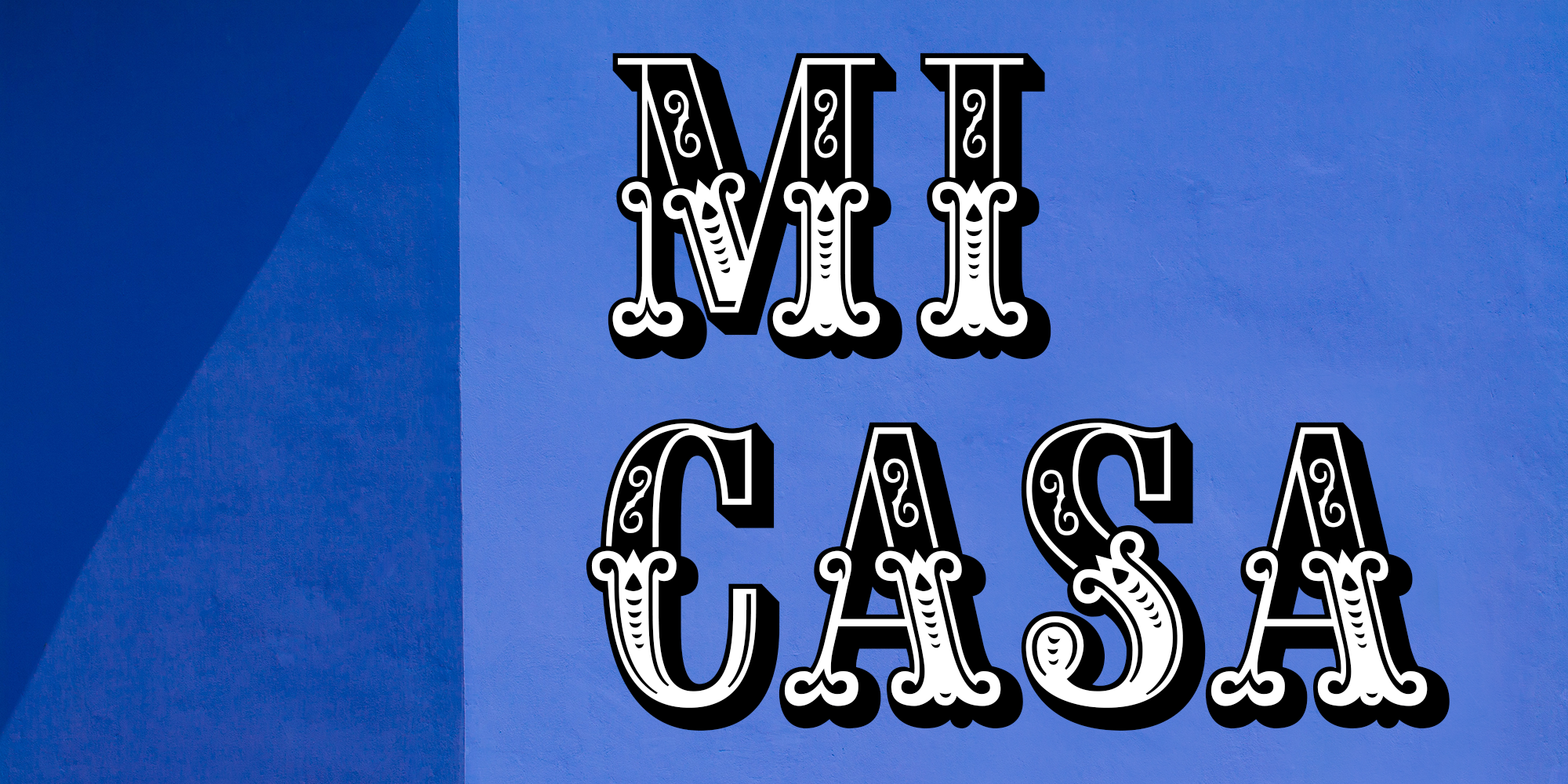
Mi Casa Font is perfect for authentic Mexican restaurants, Latino cultural centers, Hispanic family businesses, home decor brands, welcoming hospitality venues, family-owned establishments, cozy bed and breakfast inns, warm community organizations, traditional Latin American celebrations, family reunion invitations, neighborhood gathering promotions, and heartwarming home-style brand communications.
This font is exciting because it embodies the warm hospitality and family-centered values of Latino culture, featuring invitingly comfortable letterforms that welcome visitors with the same generous spirit and open-hearted warmth found in traditional Mexican homes where "mi casa es su casa" isn't just a saying but a genuine invitation to become part of the family and share in the abundant love, delicious food, and joyful celebrations that make every guest feel truly at home. The lovingly crafted character design captures both the cultural pride of Latino heritage and the universal appeal of genuine hospitality, creating typography that feels both authentically rooted in tradition and warmly welcoming to everyone. Each letter radiates the kind of family warmth and cultural generosity that transforms ordinary text into heartfelt invitations to experience the beauty of Latino family traditions.
The Mi Casa Font family includes regular and bold weights with complete character sets featuring family-friendly numerals, welcoming punctuation marks, and decorative elements inspired by Mexican tiles, Latin American patterns, family motifs, and traditional home design aesthetics. Advanced versions may offer additional stylistic variants with enhanced warm effects, alternate characters that create family-like connections, and cultural ornaments that celebrate the rich heritage of Latino hospitality and family traditions.
Whether you're developing Latino family business branding, creating cultural celebration materials, or designing welcoming hospitality content, Mi Casa Font Free Download provides the authentic warmth and cultural hospitality your project needs to connect with audiences who value family, tradition, and the genuine welcome that makes strangers feel like family. This typeface transforms ordinary text into warm invitations that celebrate both Latino cultural heritage and the universal desire for belonging and genuine hospitality. The font's welcoming character makes it ideal for businesses and organizations that prioritize family values and cultural authenticity. Latino heritage advocates and family-focused marketers will appreciate how this font brings authentic cultural warmth to their work with its genuinely hospitable and family-centered character that opens hearts and homes.